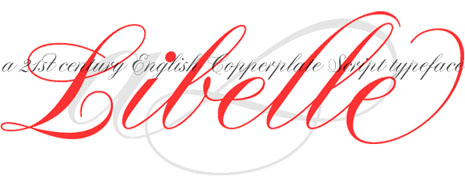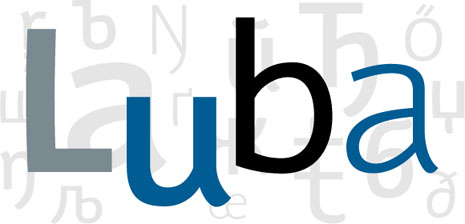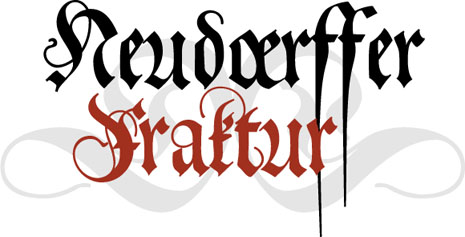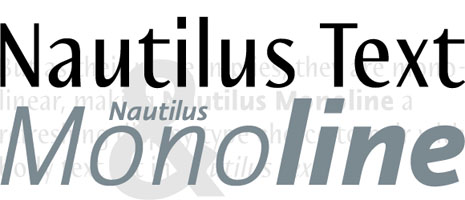
Four New Linotype Font Families
Explore a copperplate script, informal sans serif, blackletter, and a contemporary sans serif.
Linotype is highlighting four recent additions to its type library.
Libelle
Jovica Veljovic plays a special role in the world of typeface design. Originally hailing from Serbia, he has been educating generations of new designers at the university in Hamburg since the early 1990s. Jovica Veljovic is an accomplished calligrapher; he still performs a number of public commissions. His previous work has been released through the ITC and Adobe libraries. In 1985, he received the coveted Charles Peignot prize, given by the ATypI once every few years to a typeface designer younger than 35. In recent interviews with the German media, Hermann Zapf mentioned him as his successor.
Jovica’s newest typeface release is a Linotype Original. Named Libelle™, after the German word for dragonflies, this feature-rich English copperplate script highlights Jovica’s mastery of calligraphic detail, as the font includes more than 400 alternates – just enough to inject the right amount of irregularity into this rigid genre.
Luba
Berlin-based designer Hendrik Möller created Luba™ as part of his final project at university. The typeface family is an informal sans serif that encompasses both the Latin and the Cyrillic scripts. Möller envisioned that it might be used in language textbooks aimed at helping Western Europeans learn the Russian language or other languages like Ukrainian or Bulgarian that use the Cyrillic script. Luba’s design places significant emphasis on the most necessary identifying elements of each letter, resulting in clear, legible forms. Since learning a language is already stressful enough, Luba’s style is that of an open, informal sans serif, which should relax the student as they read through their exercises.
Neudoerffer Fraktur
For decades, German designer Hellmut G. Bomm has been fascinated by Johann Neudörffer the Elder’s 1538 writing manual. A collaborator of the renowned German Renaissance painter Albrecht Dürer, Neudörffer helped develop the Fraktur style of Blackletter. Fraktur types would go on to be among the most-used European typographic styles for centuries. Going back to the roots, as it were, was a driving force for Bomm. His Neudoerffer Fraktur™ design has three separate character sets, offering users more variety than in most blackletter fonts. Depending on your computer applications’ level of OpenType support, you may choose between two versions of OpenType fonts for Neudoerffer Fraktur. If you are using Adobe InDesign CS, you can take advantage of the three Stylistic Sets in Neudoerffer Fraktur Regular. Otherwise, to get the typeface’s full effect, you will need to switch between Neudoerffer Fraktur Regular 1, Neudoerffer Fraktur Regular 2, and Neudoerffer Fraktur Regular 3.
Nautilus Text and Nautilus Monoline
Hellmut G. Bomm has been quite busy recently. These offerings are of a completely different nature than Neudoerffer Fraktur, showing his versatility with letters. Together, Nautilus™ Text and Nautilus Monoline offer document creators a diverse new kit of design tools. The Nautilus type system arose out of an earlier Bomm release: his original Linotype Nautilus, which was published in 1999. Nautilus Text is similar to Linotype Nautilus, but more finally tuned to the needs of immersive reading. Nautilus Monoline is completely new, and feels quite contemporary. Its letterforms share the same proportions as those in Nautilus Text, but without the calligraphic modulation. Nautilus Monoline is a refreshing headline type to pair with body text set in Nautilus Text, or any other condensed serif design.
I especially like Libelle and Nautilus.
I remember Jovica's work from many years ago. It looks like he has gone from improving typefaces to designing his own... and Nautilus is so different.
Have to admit I love the "daggered" "f"s in Fraktur although the use would seem pretty limited.